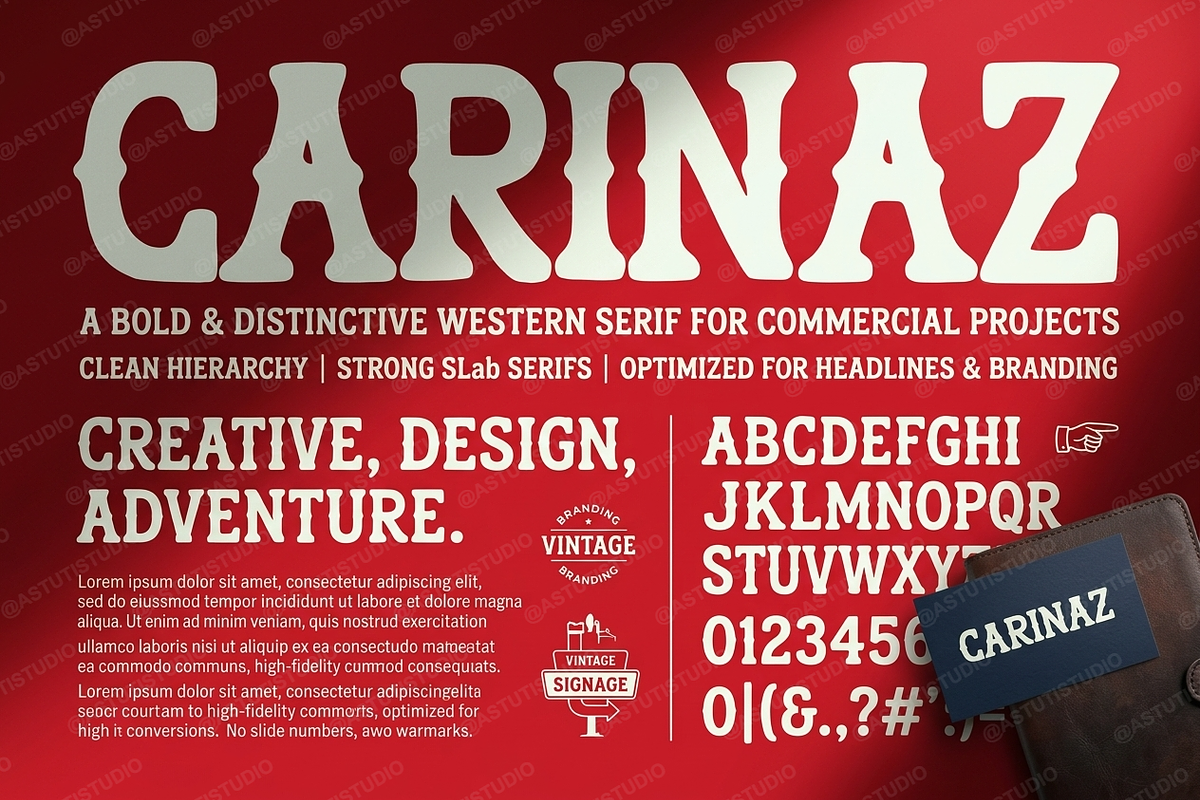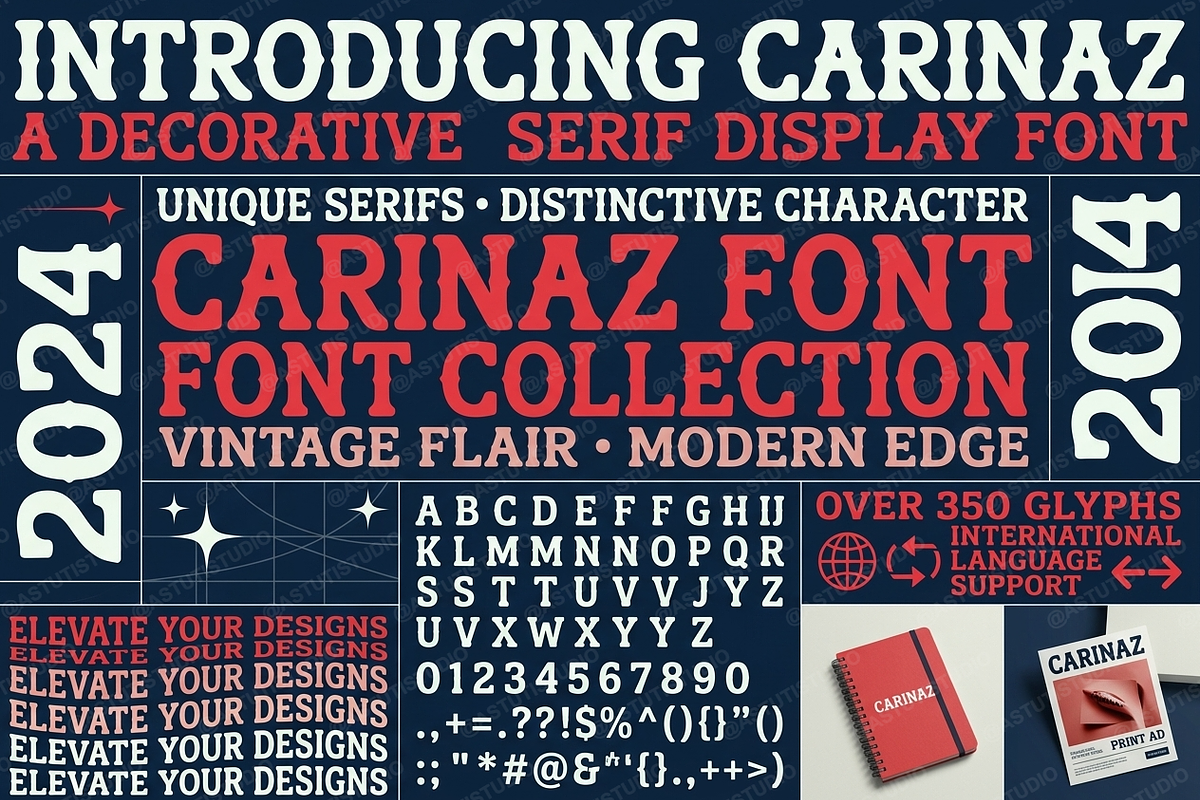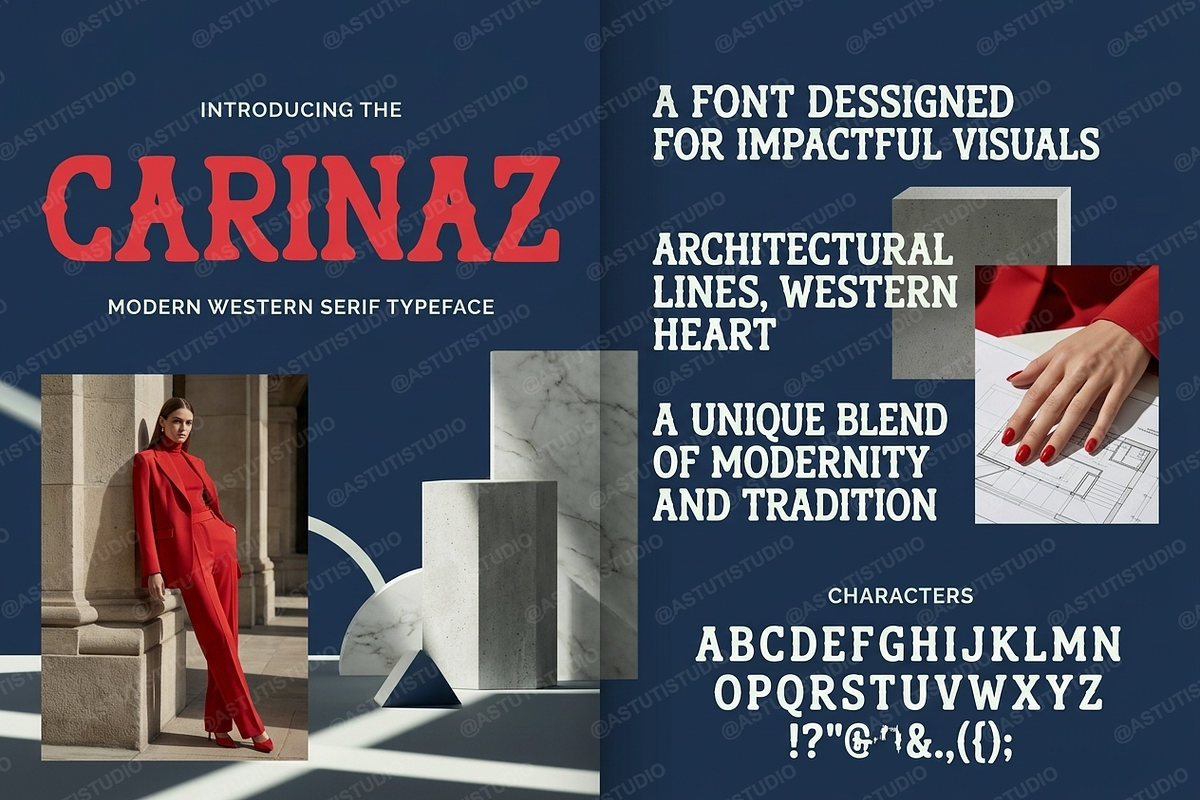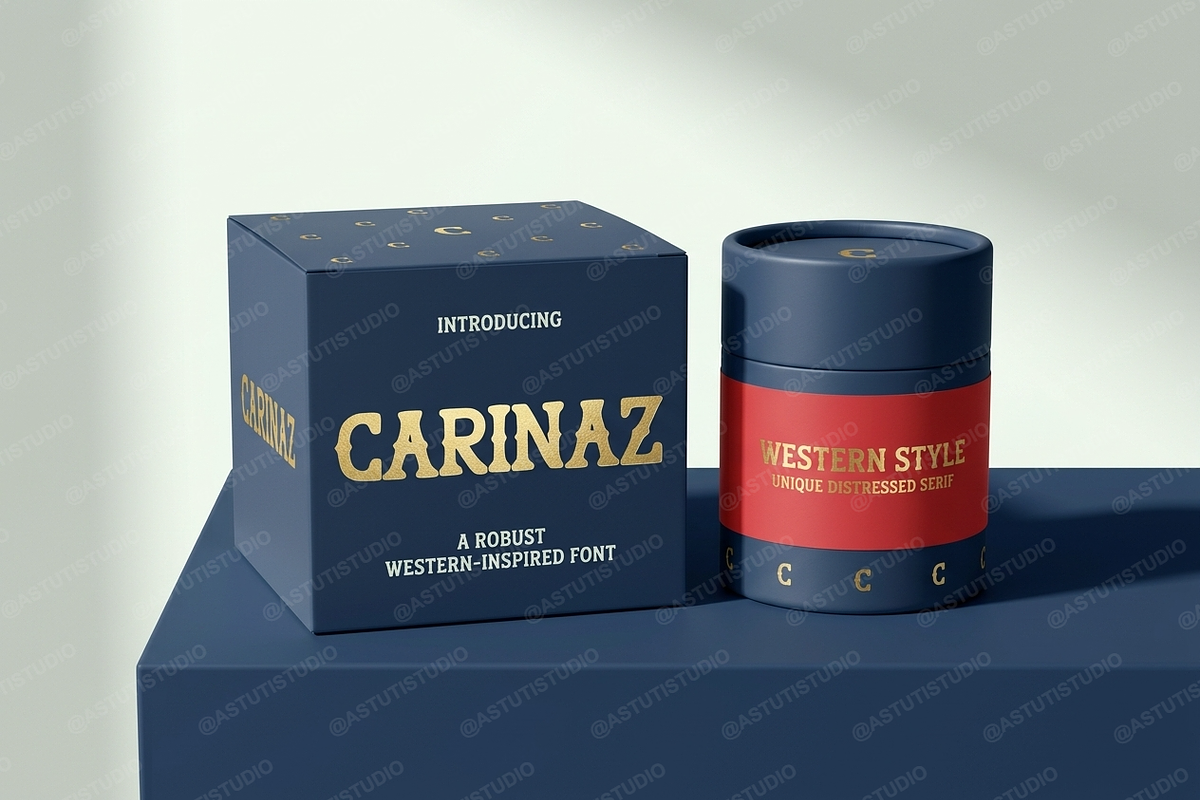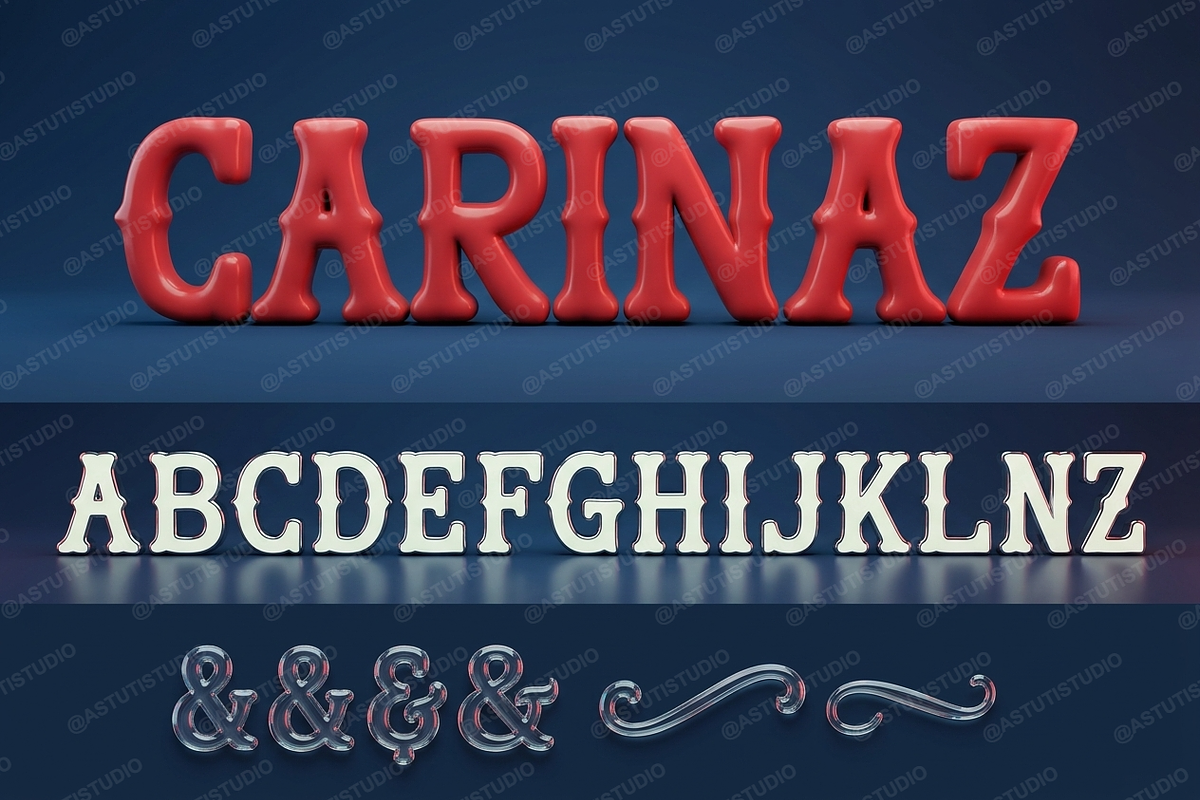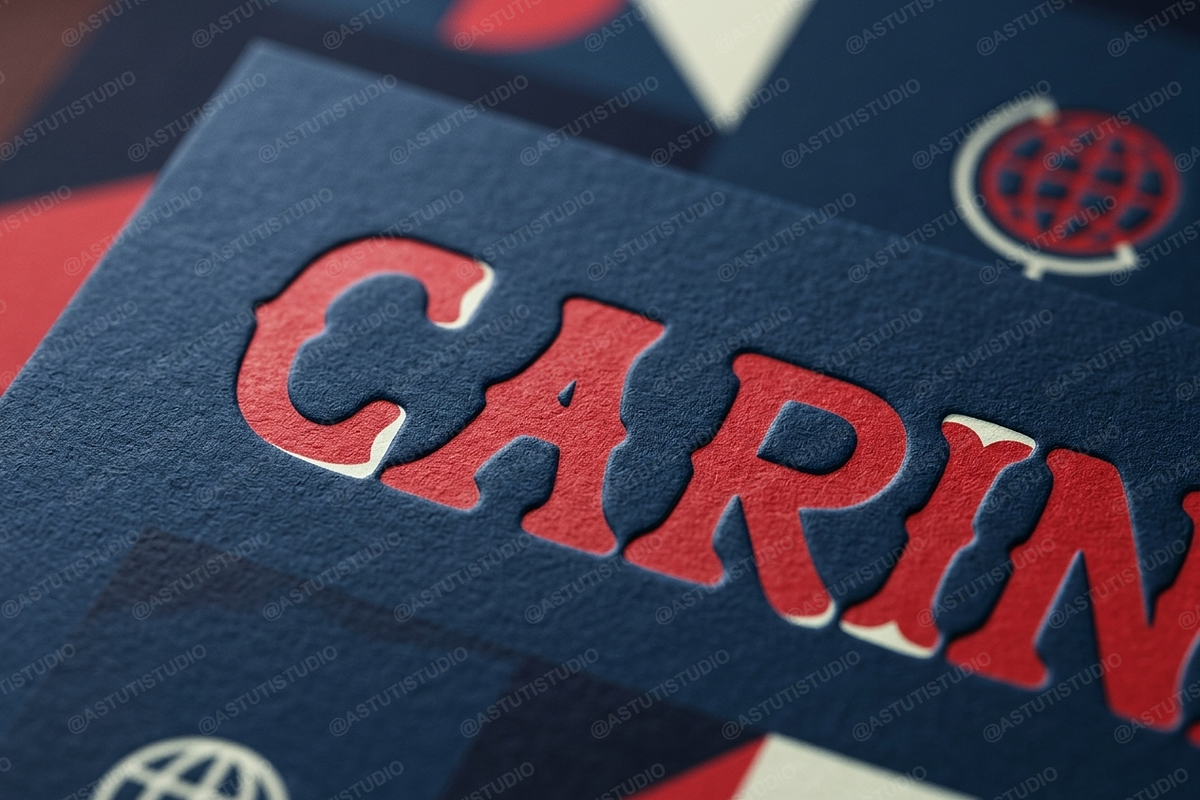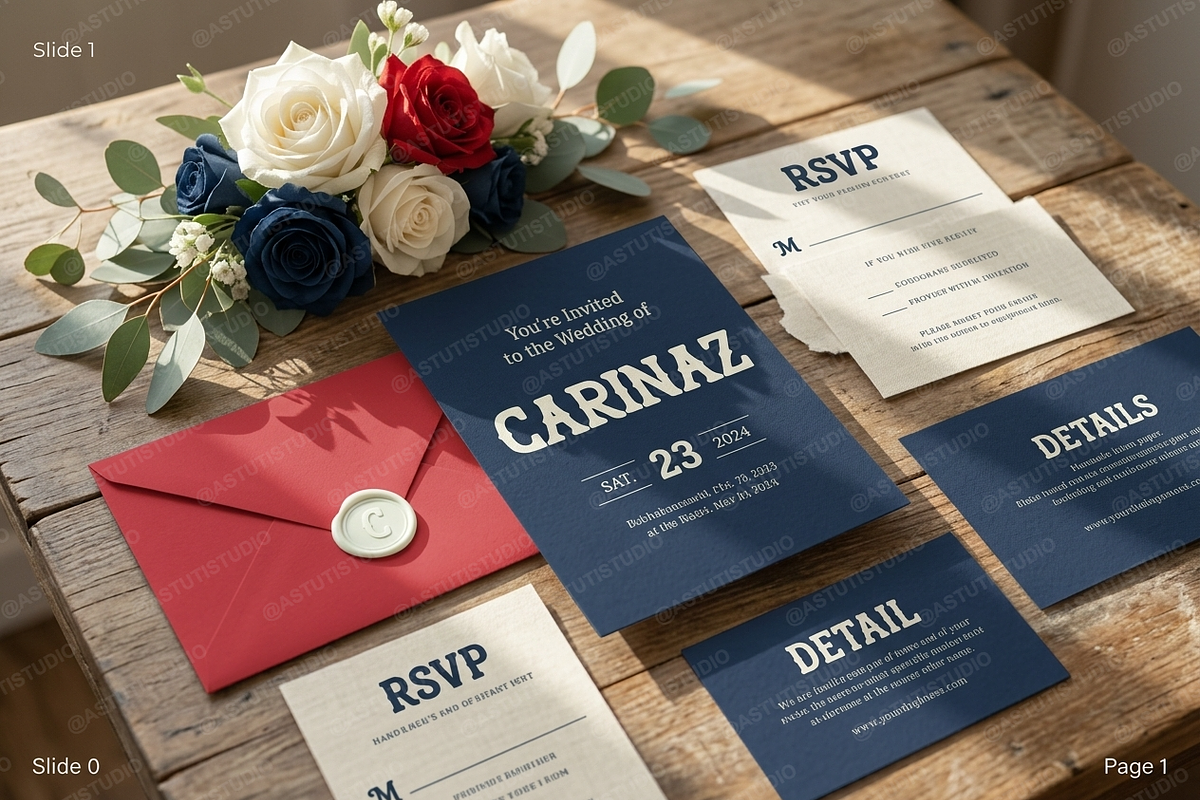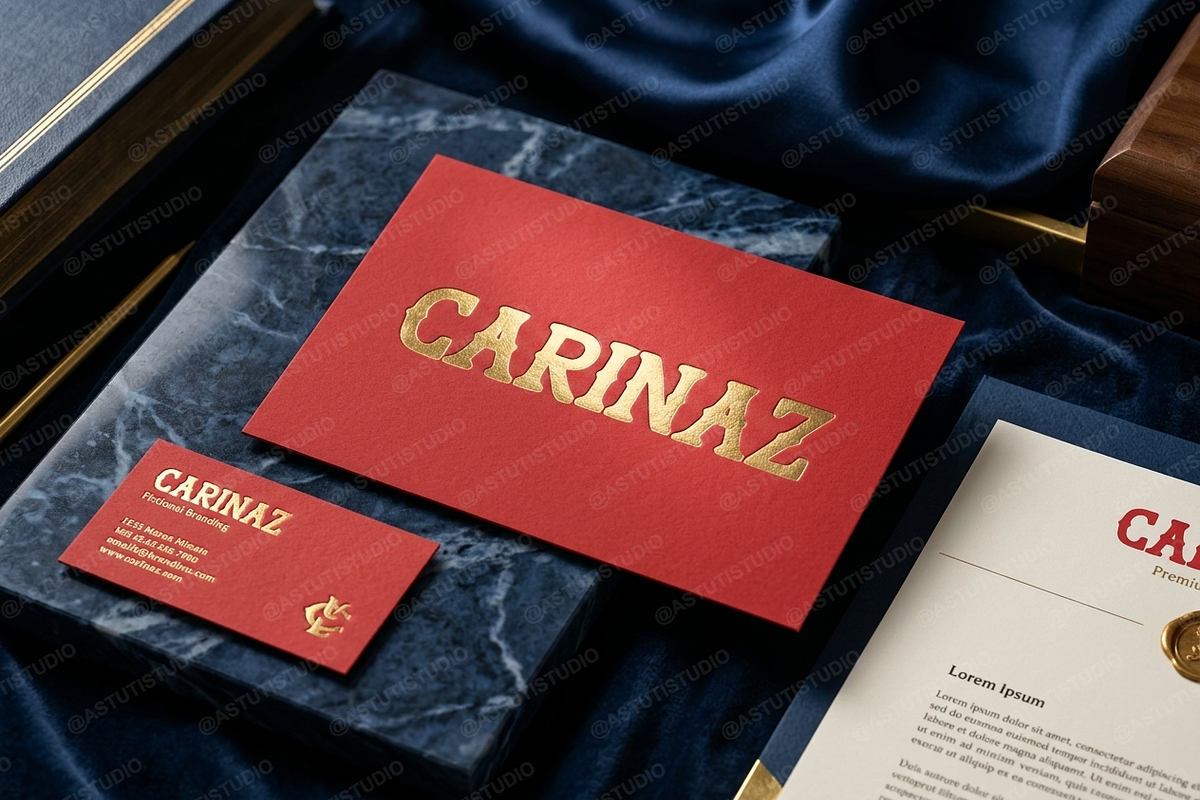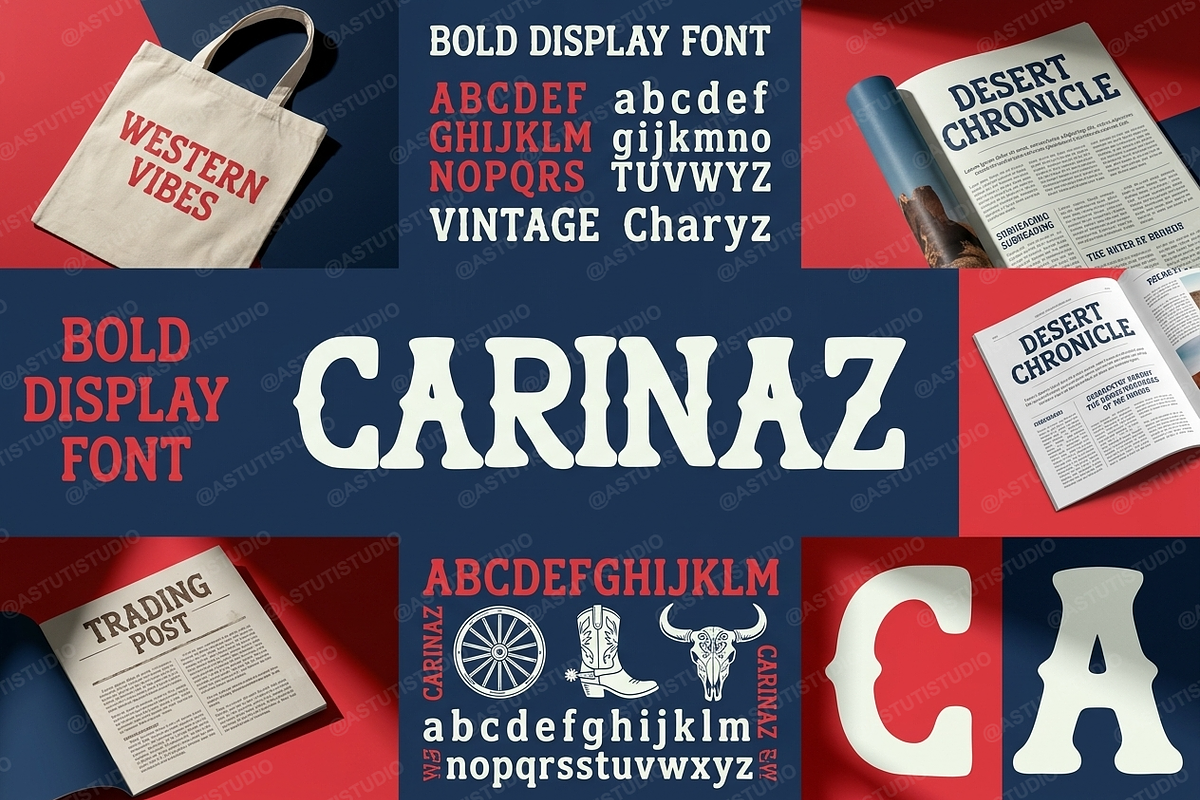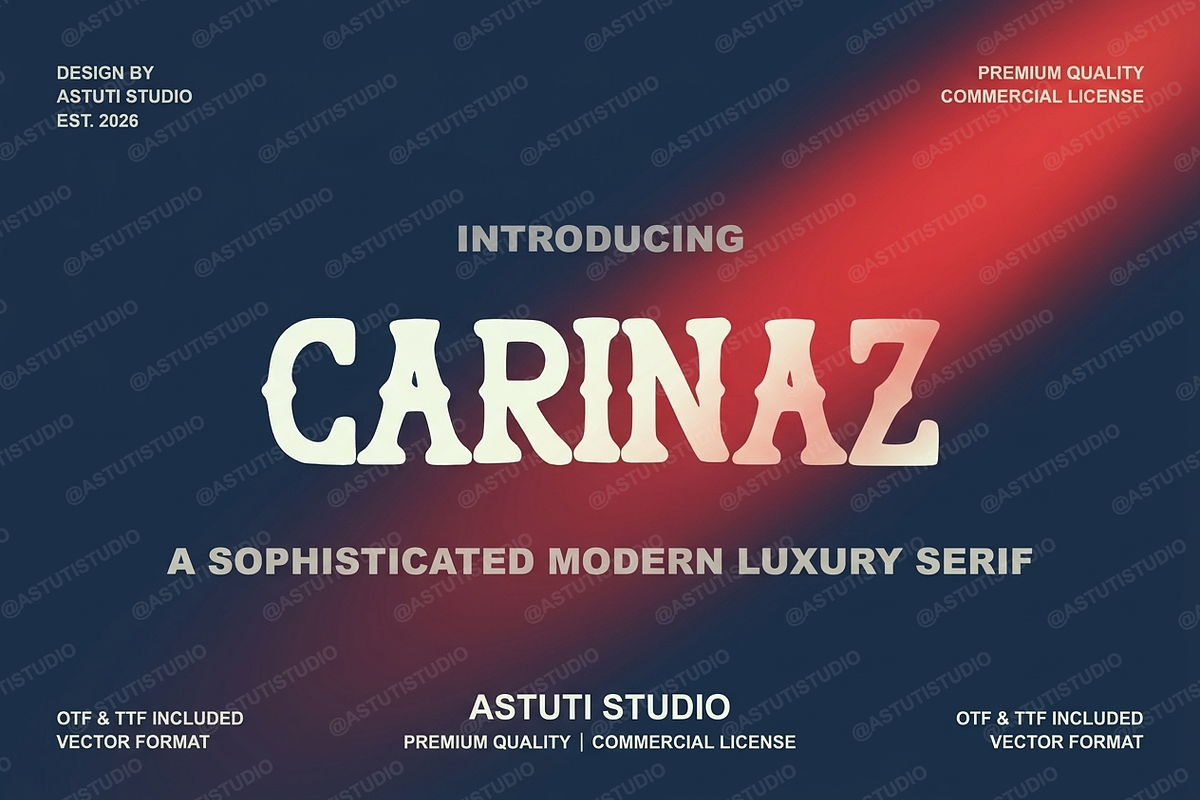
CarinaZ | Elegant Modern Serif
INTRODUCTION
CarinaZ is a sophisticated serif typeface crafted for those who demand excellence in design. Combining timeless elegance with modern geometric precision, CarinaZ elevates your brand's visual narrative. It is the perfect choice for luxury branding, high-end editorial layouts, minimalist packaging, and premium social media content.
DESIGN FEATURES
- Clean and balanced letterforms with a modern aesthetic
- Unique discretionary ligatures for a custom-tailored feel
- Extensive multilingual support for global reach
- Optimized kerning for professional-grade readability
- Versatile styling for both headlines and body text
Elevate your creative repertoire with the refined aesthetic of CarinaZ.